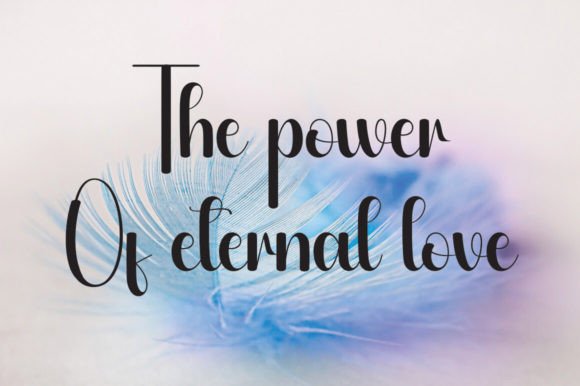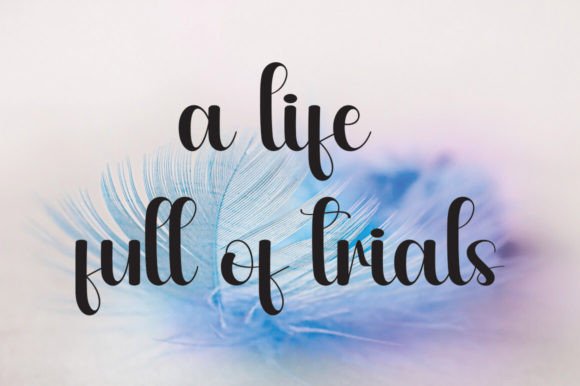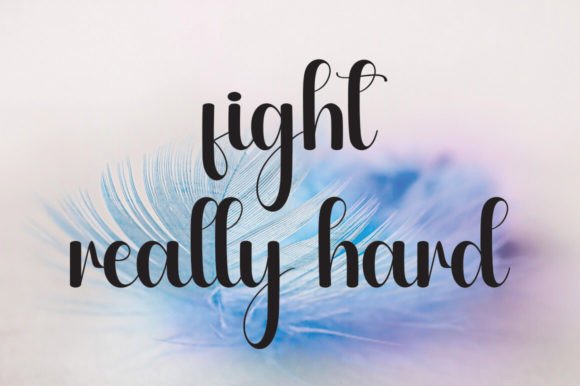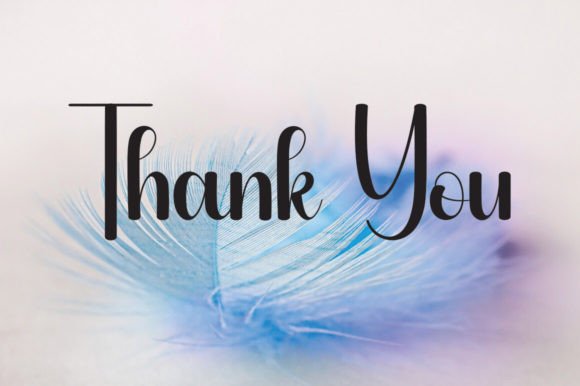
Discover the Elegance of Angela Font: Elevate Your Designs with a Touch of Romance
In the vast universe of typography, few fonts capture the essence of romance and elegance as effortlessly as Angela Font. This strikingly romantic and elegantly cursive handwritten font has been making waves in the design community, and for good reason. Angela is not just a font; it’s an experience, a mood, a statement that can transform your creative projects into something truly magical.
The Charm of Angela Font
At first glance, Angela Font exudes a genuine sweetness that is hard to ignore. Its cursive strokes are fluid and graceful, making it perfect for a wide range of design applications. Whether you’re working on wedding invitations, romantic getaways, fashion blogs, or any project that requires a touch of elegance, Angela Font is sure to impress. Its unique charm lies in its ability to add a personal, handcrafted feel to digital and print materials, setting it apart from more generic fonts.
One of the standout features of Angela Font is its incredible versatility. It’s a font that can adapt to various design needs, from the subtle and sophisticated to the bold and expressive. Designers and crafters will appreciate how Angela can breathe life into a vast spectrum of design concepts, including:
- Wedding and Event Planning: Create stunning wedding invitations, save the dates, and event banners that capture the essence of your special day.
- Fashion and Beauty: Elevate fashion blogs, brand logos, and product packaging with a touch of sophistication and glamour.
- Stationery and Greeting Cards: Add a personal touch to your stationery, greeting cards, and postcards, making them memorable and heartfelt.
- Digital and Social Media: Enhance your social media posts, digital banners, and website headers with a font that speaks elegance and charm.
Why Choose Angela Font?
Choosing Angela Font for your projects comes with numerous benefits:
- Unique Appeal: Stand out from the crowd with a font that offers a unique aesthetic, hard to find in more conventional typography.
- Customization: The cursive nature of Angela allows for a high degree of customization, enabling you to play with ligatures and swashes to create a truly unique look.
- Emotional Connection: Fonts have the power to evoke emotions. Angela Font, with its romantic and elegant vibe, can help create an instant connection with your audience.
Tips for Using Angela Font Effectively
To make the most out of Angela Font, consider the following tips:
- Pair with Complementary Fonts: Combine Angela with simpler, sans-serif fonts for a balanced look, especially in digital media.
- Play with Sizes and Weights: Experiment with different sizes and weights to create visual hierarchy and emphasize key messages.
- Utilize Ligatures and Swashes: Take advantage of the decorative ligatures and swashes to add flair to your text, especially in titles and headings.
- Consider the Color: Angela Font looks stunning in pastel shades, gold, and classic black. Choose a color that complements the mood of your project.
Angela Font is more than just a typographical choice; it’s a design statement that can elevate your projects with its graceful charm and romantic allure. Whether you’re a professional designer or a crafty DIY enthusiast, Angela offers a world of possibilities to infuse your creations with elegance, warmth, and personality. Explore the delightful world of Angela Font and let its joy-infused touch transform your designs into something truly special.